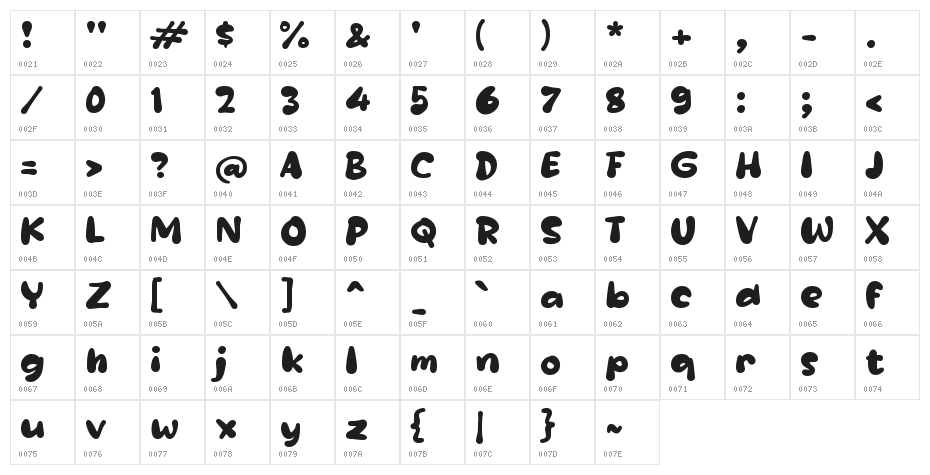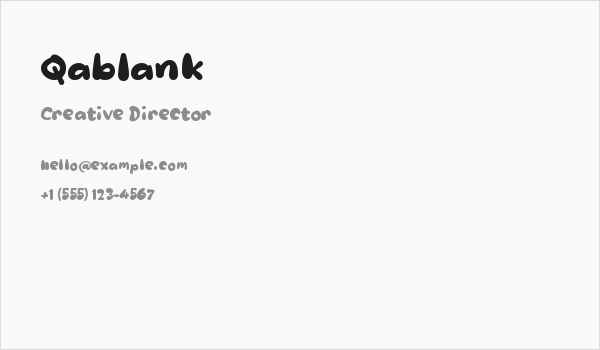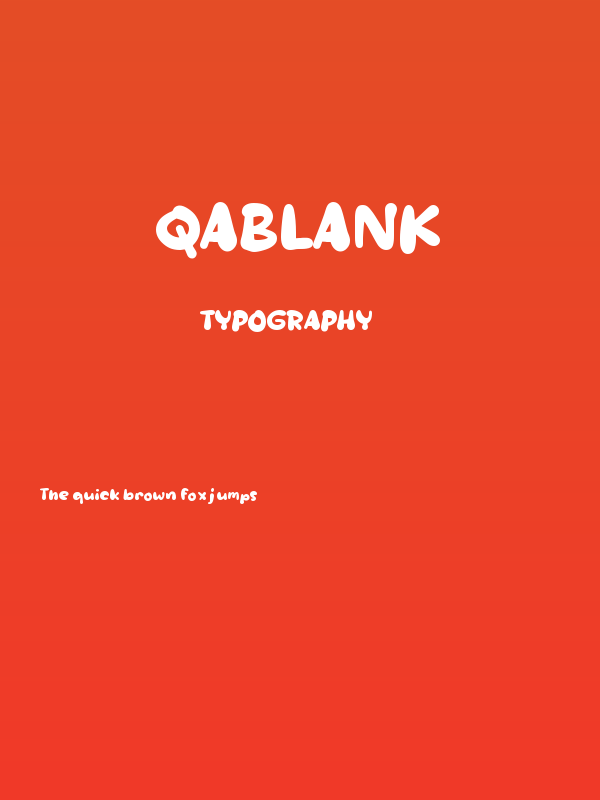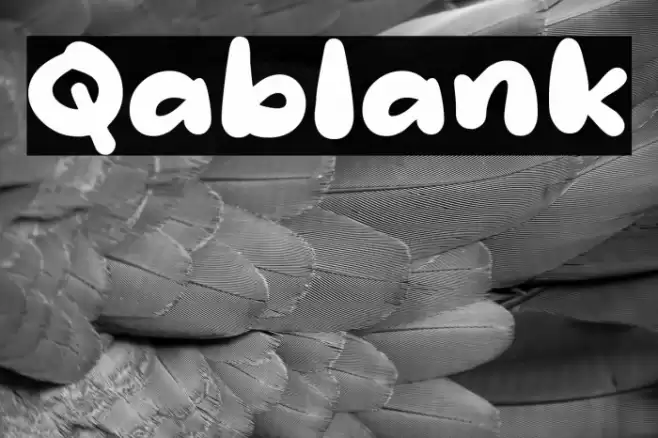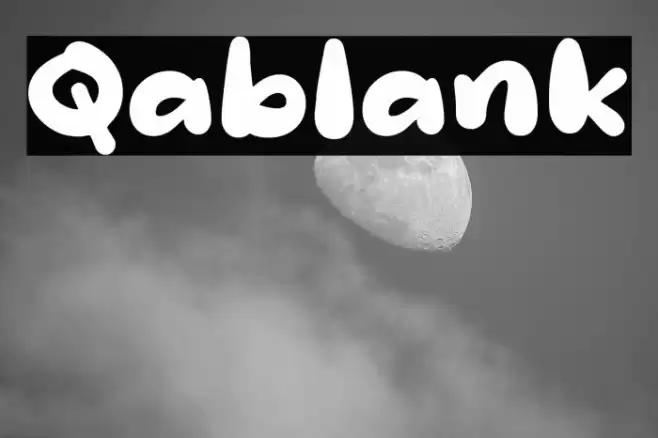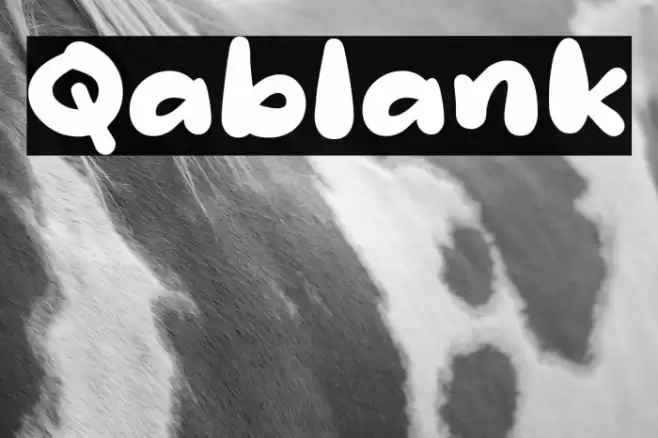
Qablank Font
Qablank Description
A bold, rounded, playful display font with a casual and friendly appearance.
| Overall Style | Playful, Casual, Friendly |
| Use Case | Headlines, Logos, Posters, Children's products |